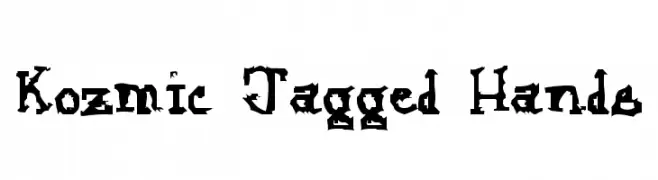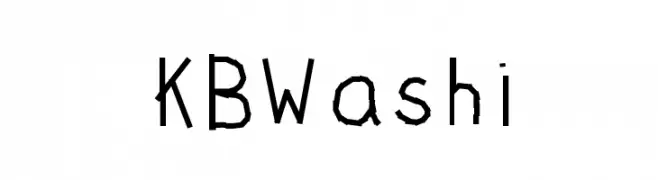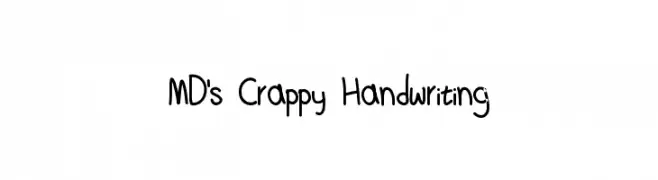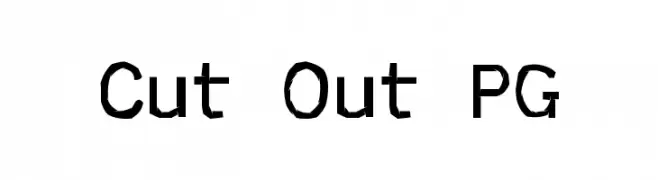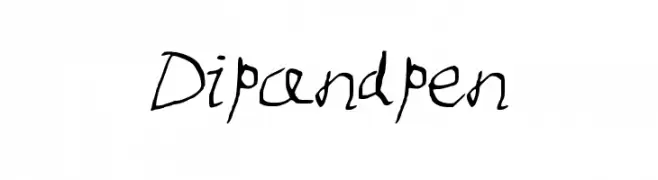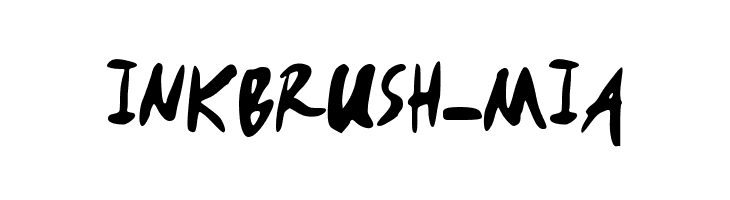
( Glyphobet Font Foundry - glyphobet.net/typography/ )
A jagged, edgy font with irregular, sharp characters for a bold appearance.
( KhrysKreations - www.teacherspayteachers.com/store/khrys-bosland )
A hand-drawn, playful font with a rough, ink-like texture.
( LadyTimeless - graphxgonewild.com/ )
A playful dingbat font with office-themed icons like push pins and notes.
( MaximDude's Fonts - maximdude.deviantart.com )
A playful, informal handwritten font with uneven letterforms.
( Mia Hague Illustration - www.miahague.co.uk )
A bold, expressive brush-style font with a hand-drawn appearance.
( Paul Grosse - grosse.is-a-geek.com/paul/ttf01.htm )
A bold, cut-out style font with a handcrafted, artistic look.
( Pixel Kitchen )
Intricate geometric pattern with interlocking shapes for decorative use.
( Pomapelele Inc )
A casual, handwritten font with an organic and dynamic style.
A classic serif font with elegant, traditional letterforms and balanced design.